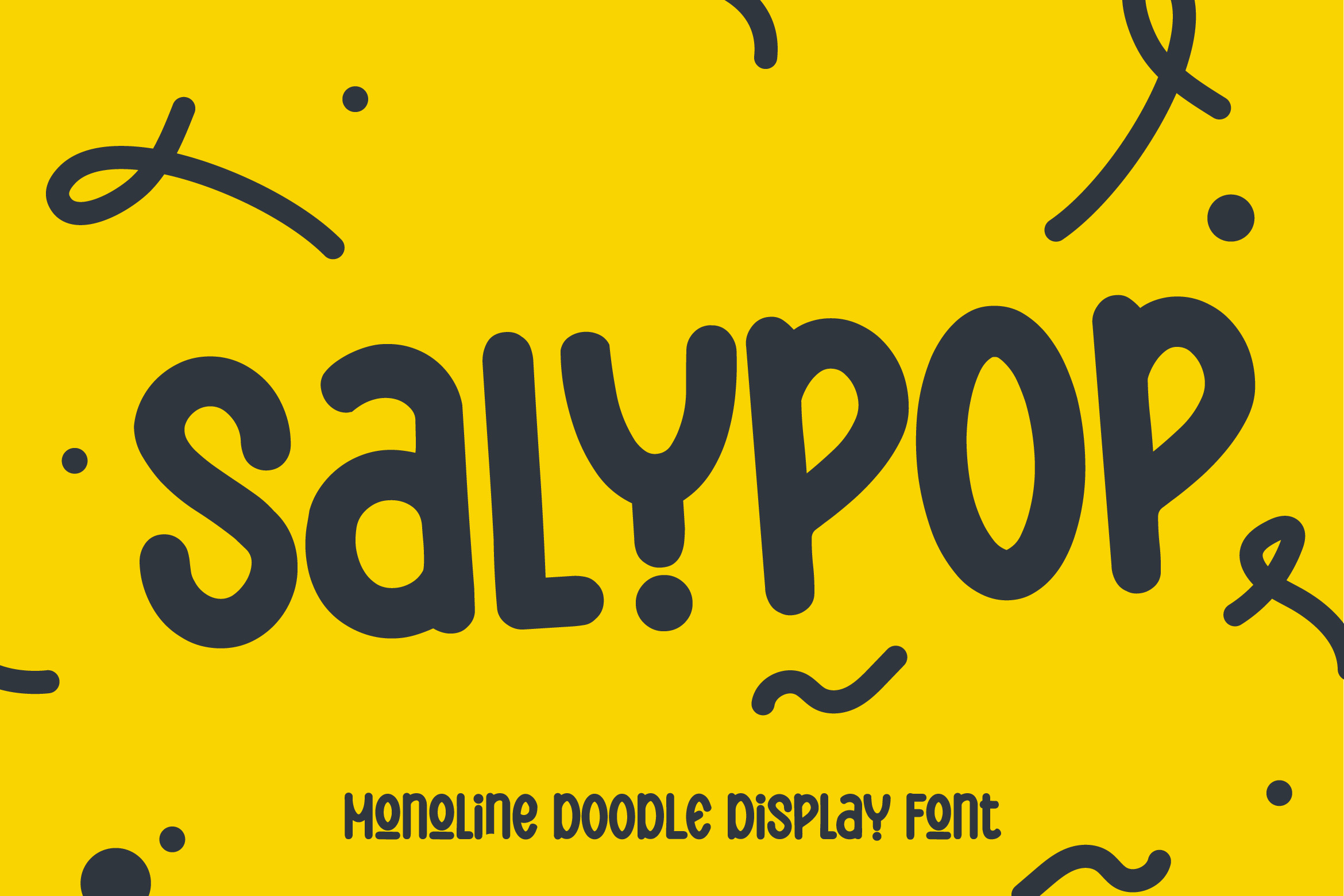
Salypop a Monoline Doodle Font
Hello Everyone! Salypop has been released for those of you who are looking for a Monoline Doodle Display Font, The font is inspired by the school and education kids font style with a few combine to doodle style and comic cartoon style turn them into a bit of a modern style. A fun typeface that captures the very playful essence of simple and bold. These fonts are meticulously crafted to ensure readability while maintaining a playful and vibe that appeals to kids of all ages.
This font is a regular character style, including Uppercase and Lowercase regular characters, number support and multilingual. Perfect for Logotypes, Invitations, Greeting Cards, Monoline Signs, Book Covers, Summer Posters, Comic Text, Merchandise, Poetry, Kids Design and more.